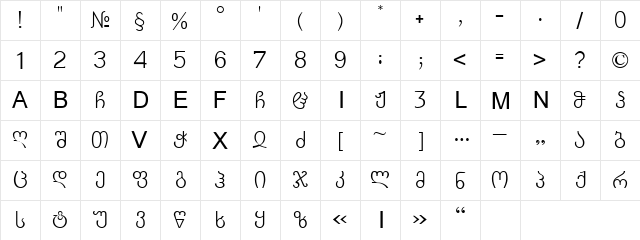
Malula_IliaM NormalA
Design Context for Malula_IliaM Typeface
Malula_IliaM offers clean, dependable letterforms without strong stylistic allegiance, making it a practical choice for designers who need flexibility.